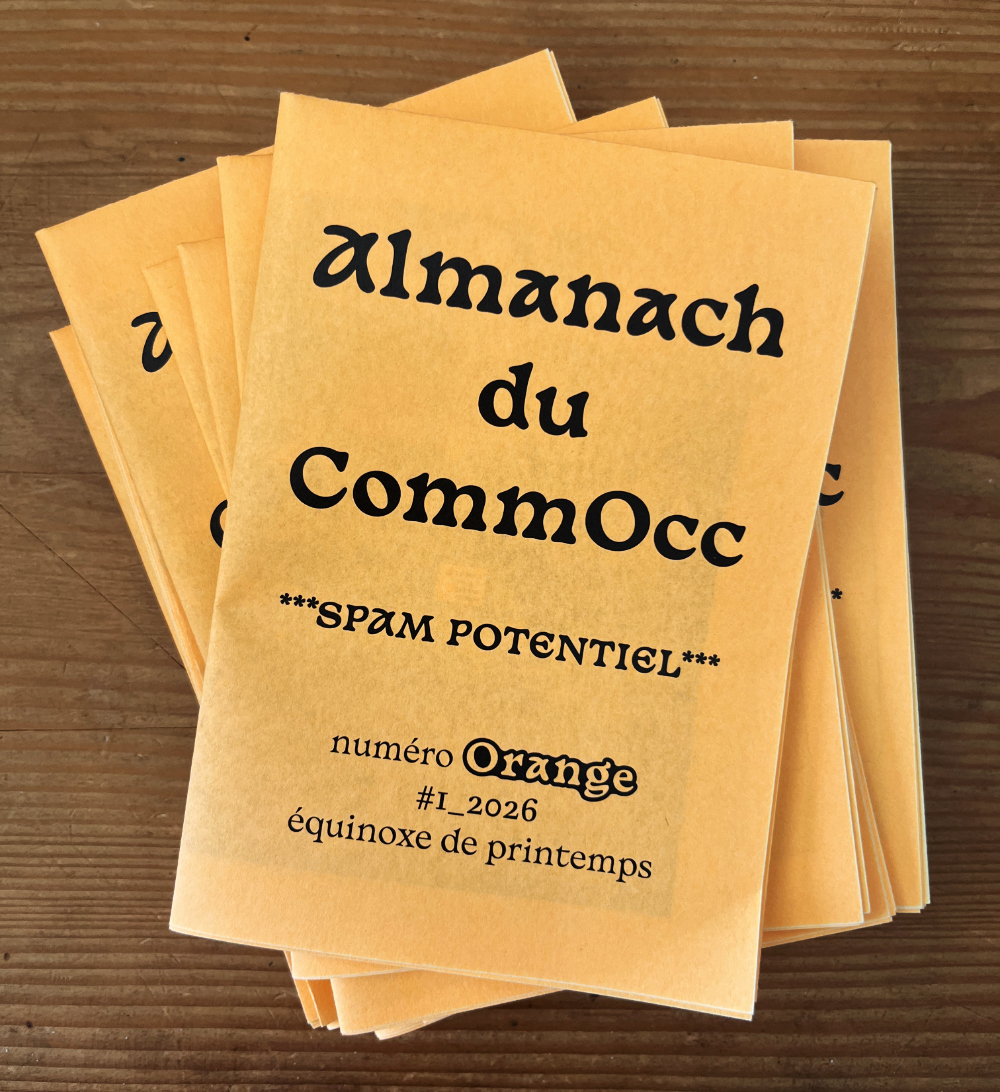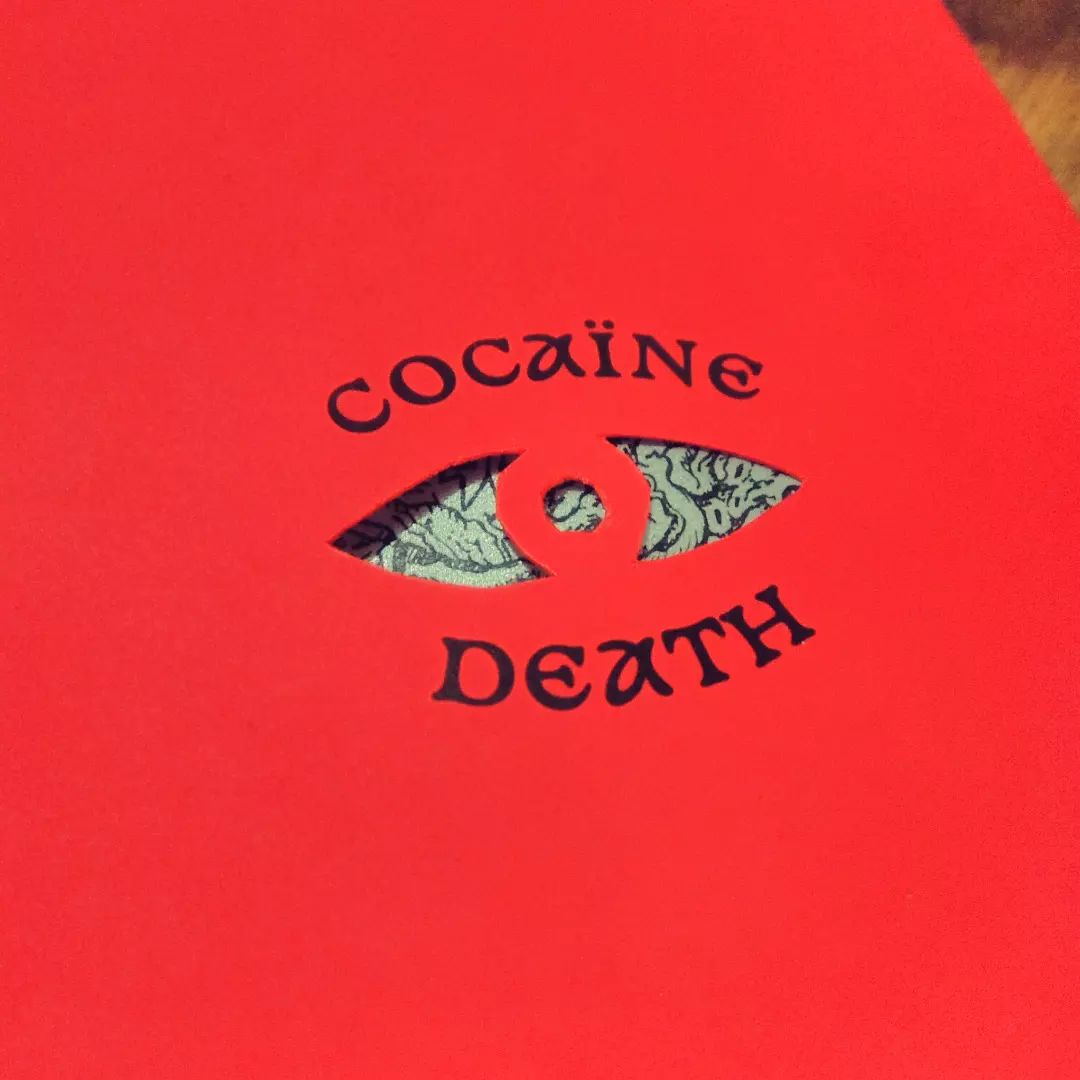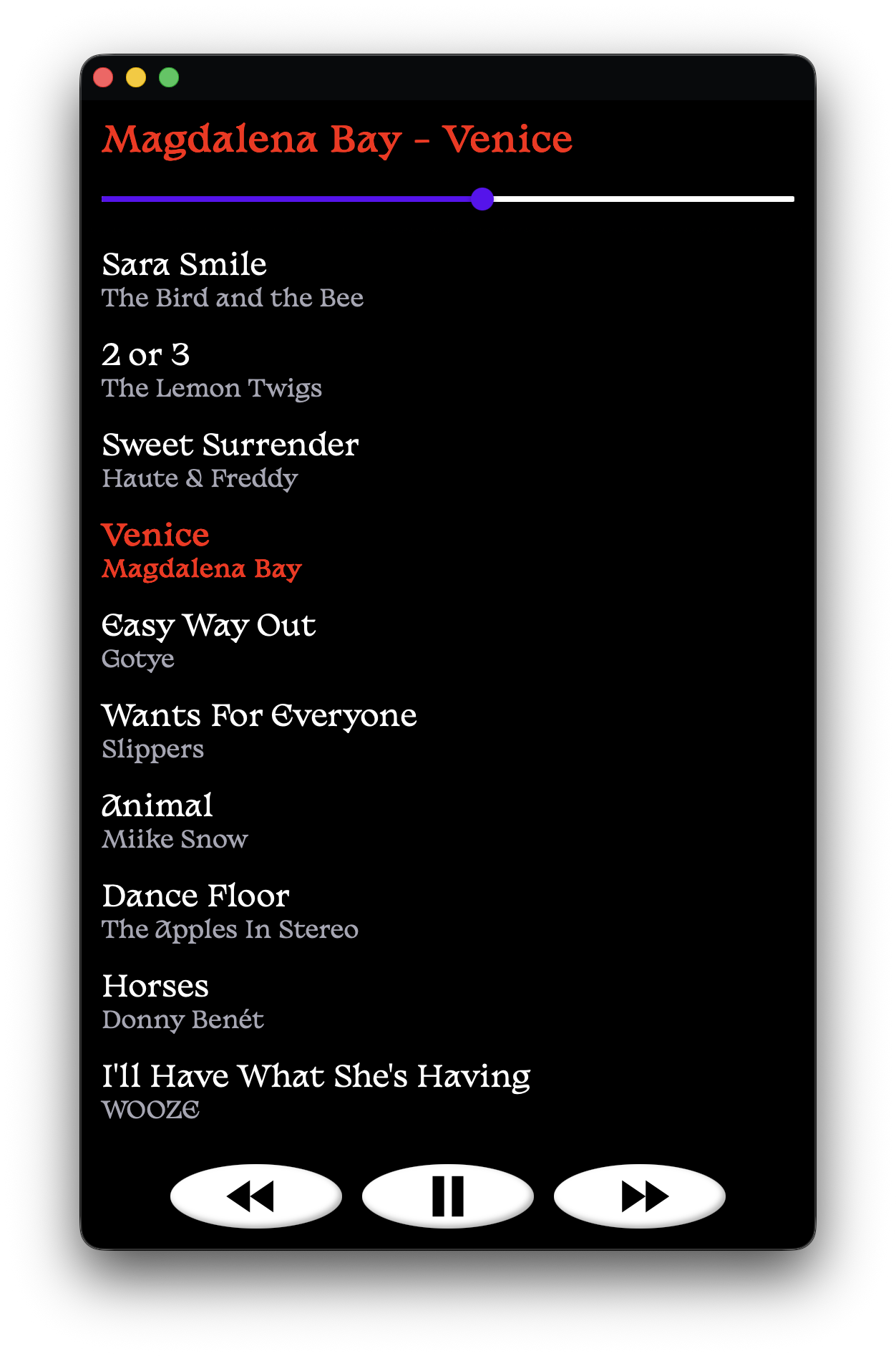
Basteleur
This typeface was designed with the Tarot de Marseille in mind. This led to a funny blend of medieval-ish and cooperblack-ish typeface. An anniversary update of June 2022 adds a lighter and sharper weight to the original bold and soft one.
The Basteleur Arcana represents a lot of things a designer can experience: new beginnings, having fun, crafting, but also a lack of confidence and having hard time to finish projects.